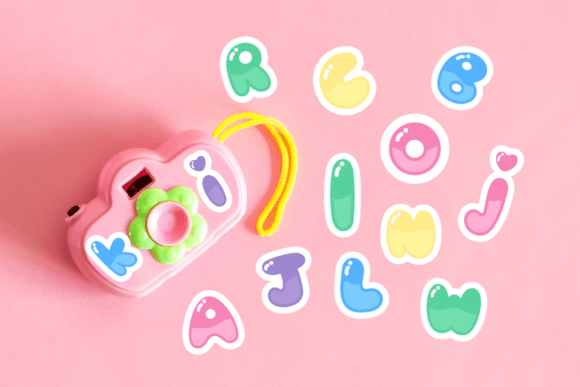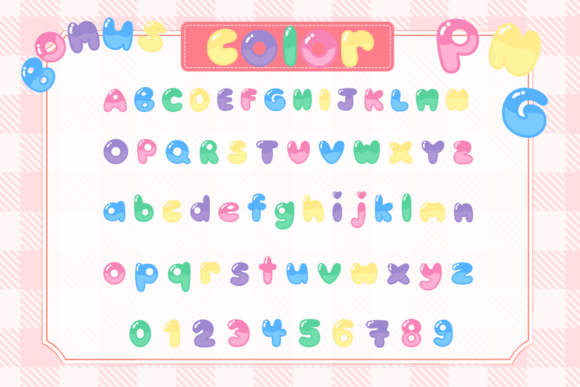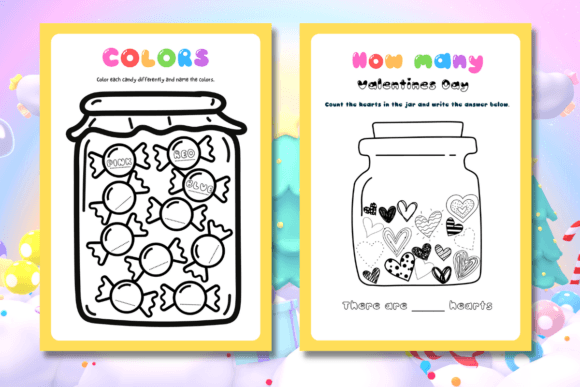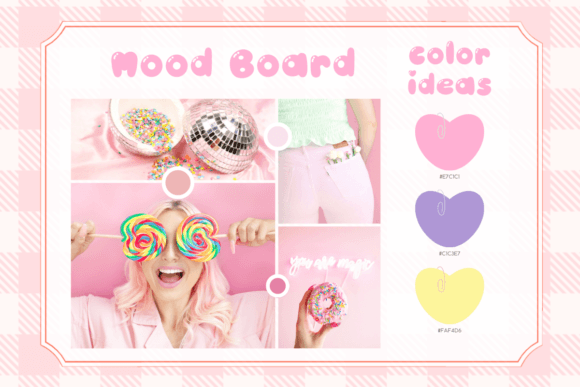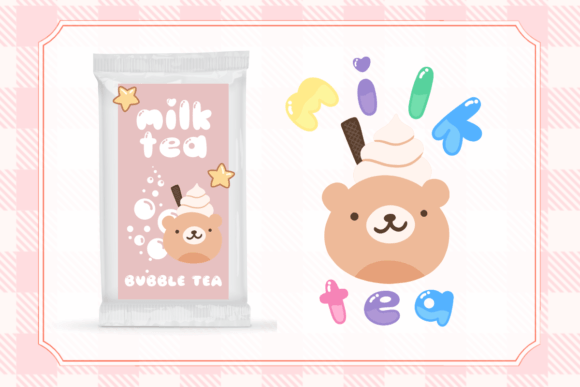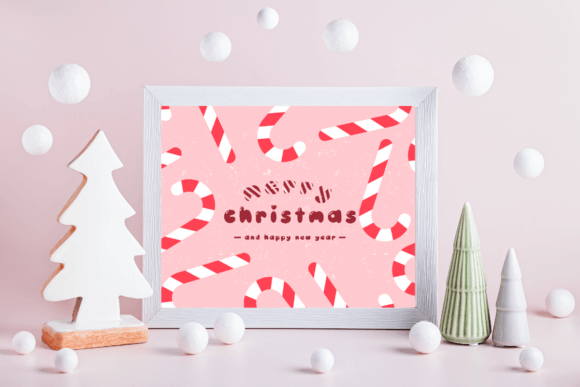
Cute Candy Font: The Sweetest Way to Add a Playful Touch to Your Designs
Are you looking for a font that can add a dash of fun and playfulness to your designs? Look no further than the Cute Candy font! This adorable and colorful display font is perfect for designers and crafters who want to create eye-catching and engaging content. In this article, we’ll take a closer look at the Cute Candy font, its features, and how you can use it to take your designs to the next level.
What is Cute Candy Font?
Cute Candy is a bold and vibrant display font that is designed to grab attention and make a statement. Its fun and friendly style makes it a great choice for children’s designs, party invitations, and more. The font features colorful and playful letterforms that are sure to bring a smile to anyone’s face. Whether you’re designing a flyer for a kids’ party or creating a social media post for a candy store, Cute Candy is the perfect font to add a touch of whimsy and fun.
Key Features of Cute Candy Font
So, what makes Cute Candy font so special? Here are some of its key features:
- Bold and Vibrant Letterforms: The Cute Candy font features bold and vibrant letterforms that are sure to grab attention.
- Playful and Fun Style: The font has a playful and fun style that makes it perfect for children’s designs and party invitations.
- Colorful and Adorable: The font features colorful and adorable letterforms that are sure to bring a smile to anyone’s face.
- Easy to Read: Despite its playful style, the Cute Candy font is easy to read, making it perfect for headlines and titles.
How to Use Cute Candy Font in Your Designs
Now that we’ve covered the features of the Cute Candy font, let’s talk about how you can use it in your designs. Here are some ideas to get you started:
- Children’s Designs: The Cute Candy font is perfect for designing children’s books, flyers, and posters.
- Party Invitations: Add a touch of fun and playfulness to your party invitations with the Cute Candy font.
- Candy and Food Designs: If you’re designing for a candy store or a food blog, the Cute Candy font is a great choice.
- Social Media Posts: Use the Cute Candy font to create eye-catching social media posts that are sure to grab attention.
Tips for Using Cute Candy Font
Here are some tips to keep in mind when using the Cute Candy font:
- Use it for Headlines: The Cute Candy font is perfect for headlines and titles. Use it to grab attention and make a statement.
- Pair it with Other Fonts: Experiment with pairing the Cute Candy font with other fonts to create a unique and interesting design.
- Use it in Moderation: While the Cute Candy font is playful and fun, it can be overwhelming if used too much. Use it in moderation to create a balanced design.
In conclusion, the Cute Candy font is a great choice for designers and crafters who want to add a touch of fun and playfulness to their designs. Its bold and vibrant letterforms, playful and fun style, and colorful and adorable design make it perfect for children’s designs, party invitations, and more. With these tips and ideas, you can use the Cute Candy font to take your designs to the next level and create eye-catching and engaging content.